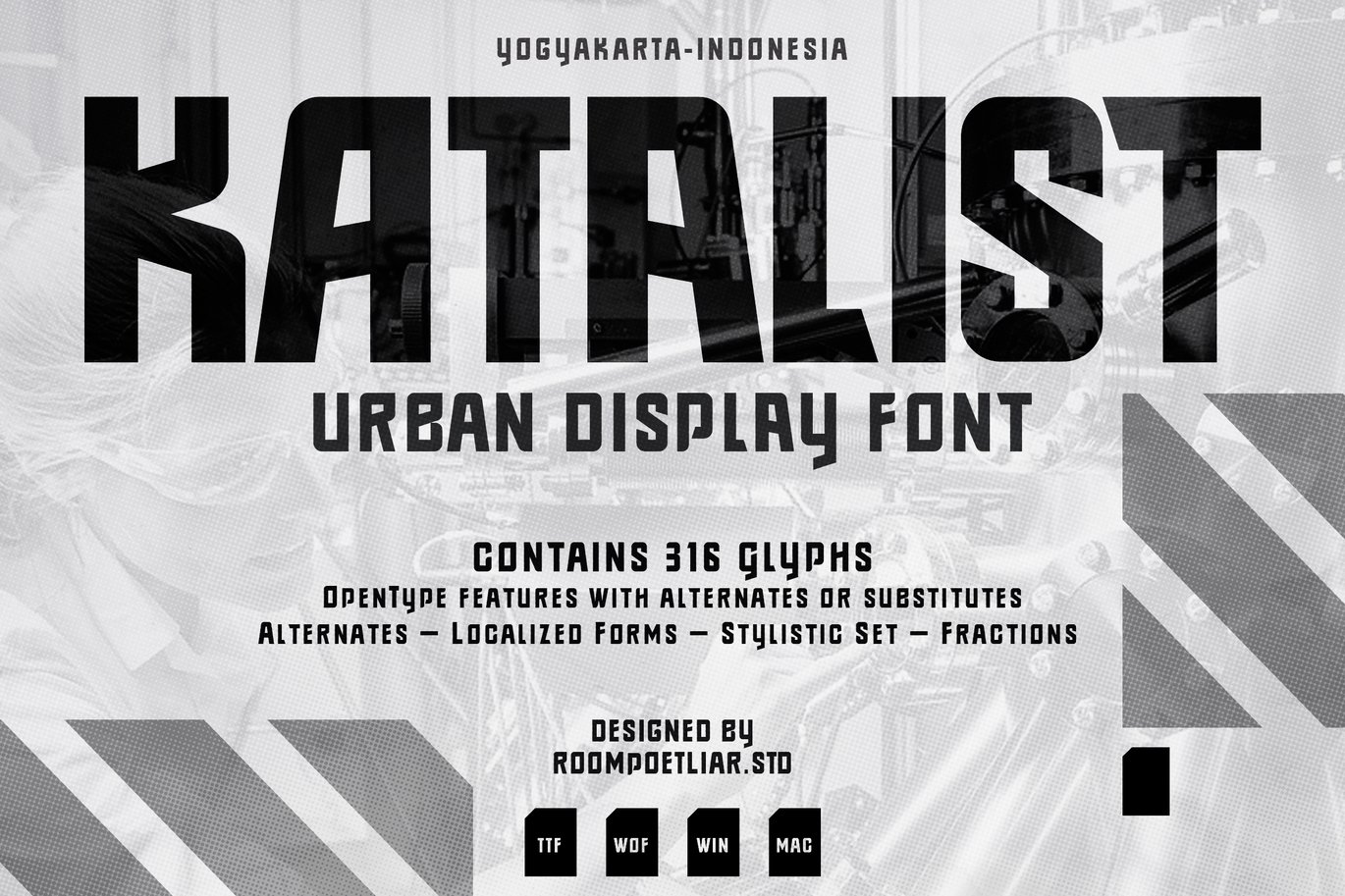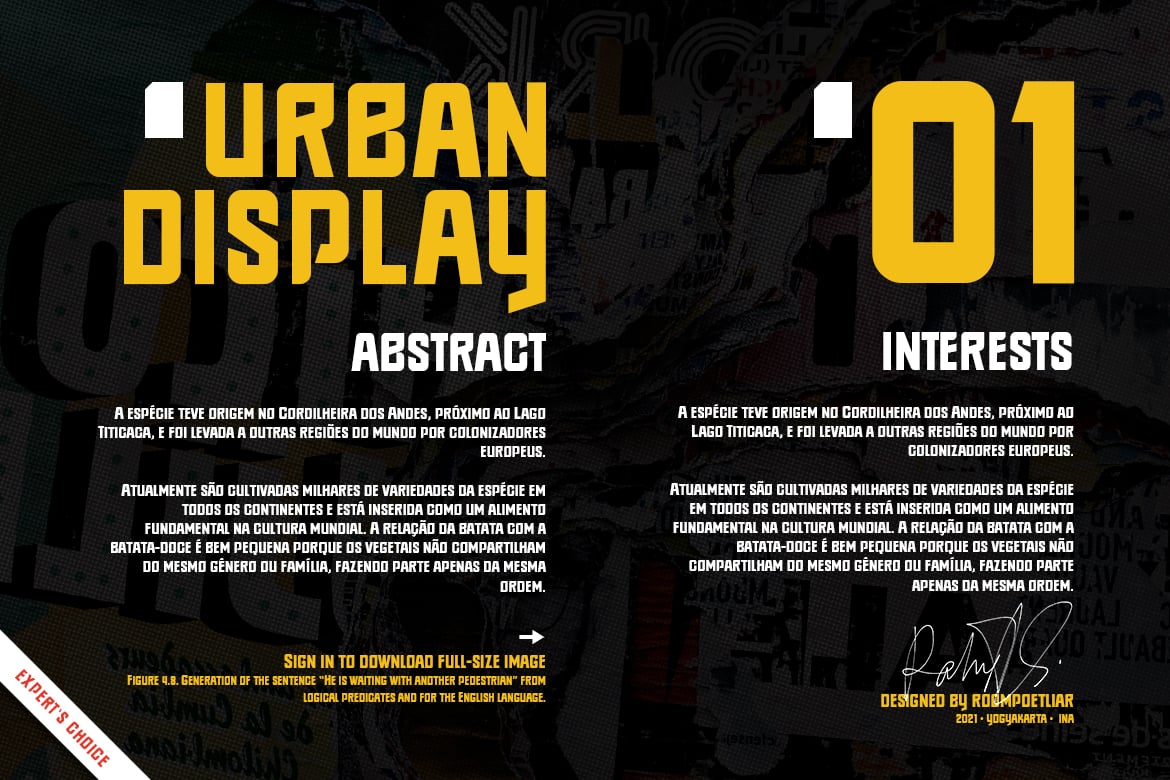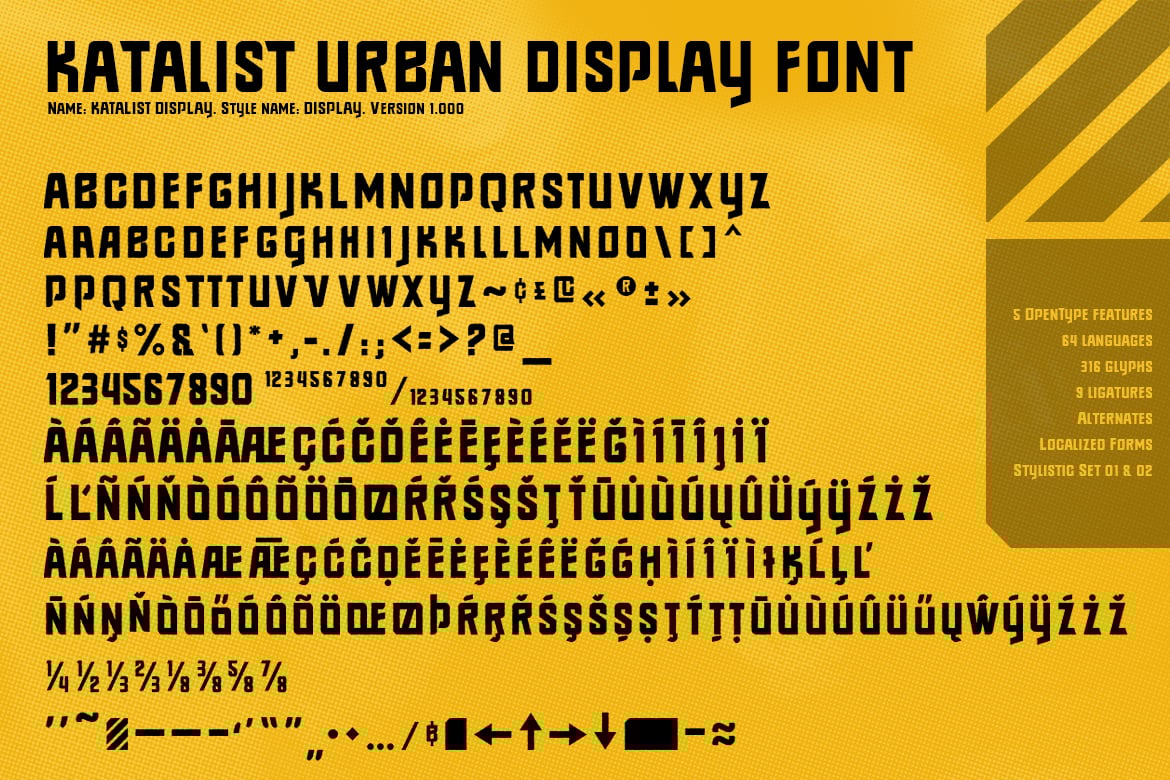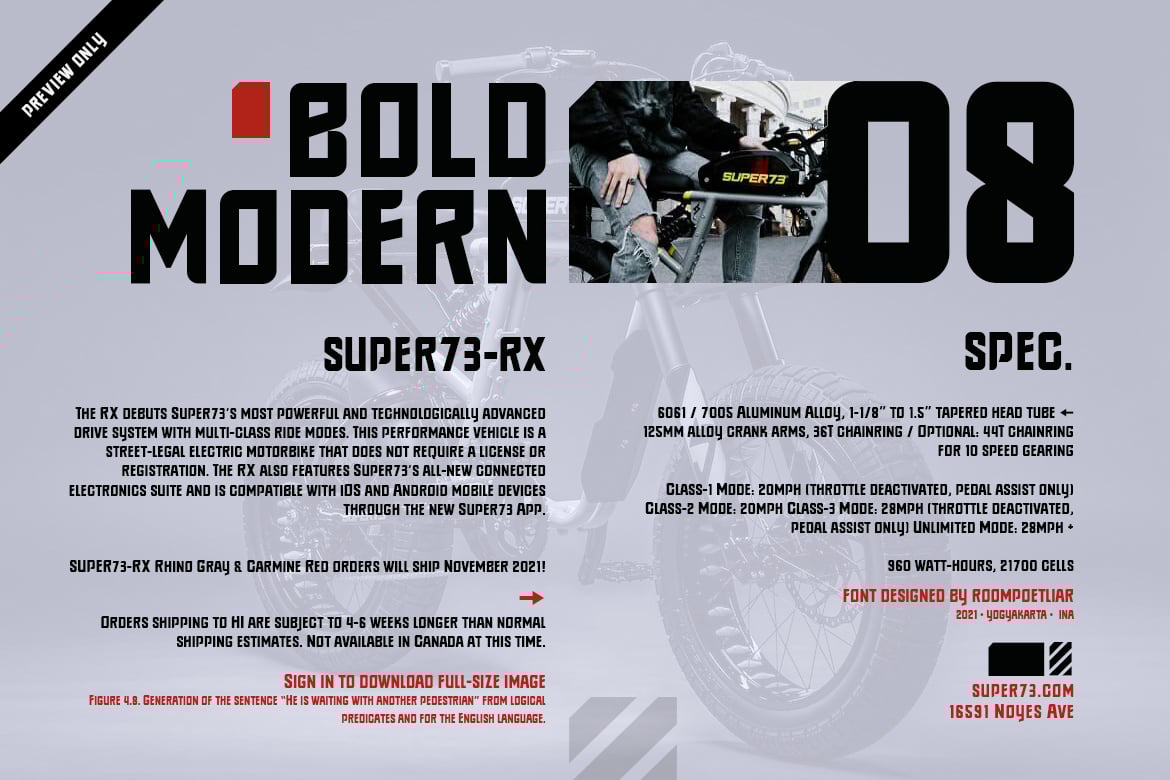
Katalist Display Font
Katalist Urban Font Display. Strong-striking font with boxy and sharp feeling. Suits best for poster designs, headlines, typography projects (streetwear, construction, resistance, solidarity, movement, revolution), Religion event, E-Sport logos, sports jersey text, etc.
CONTAINS
- 5 OpenType features
- 64 languages
- 316 glyphs
- 9 ligatures
- Localized Forms
- Stylistic Set 01 & 02